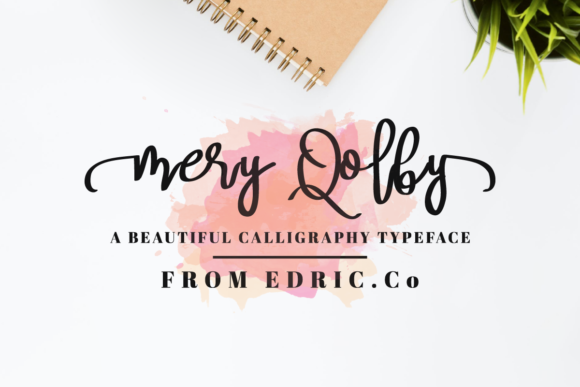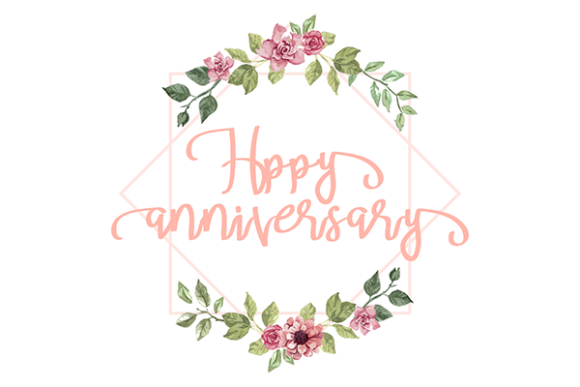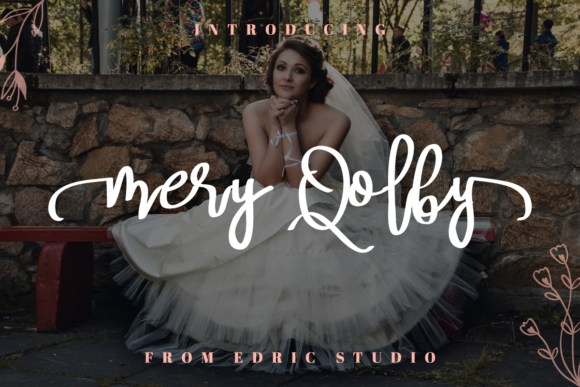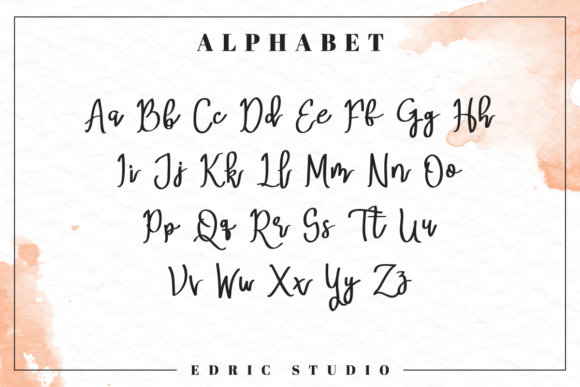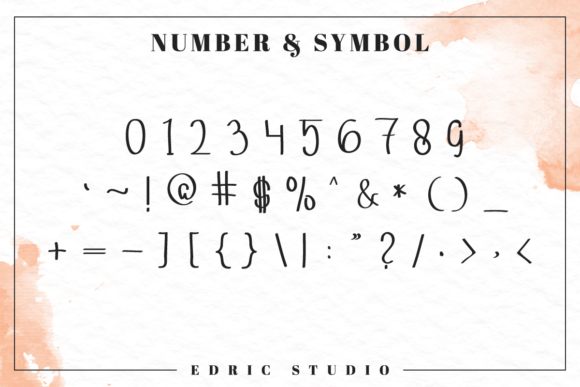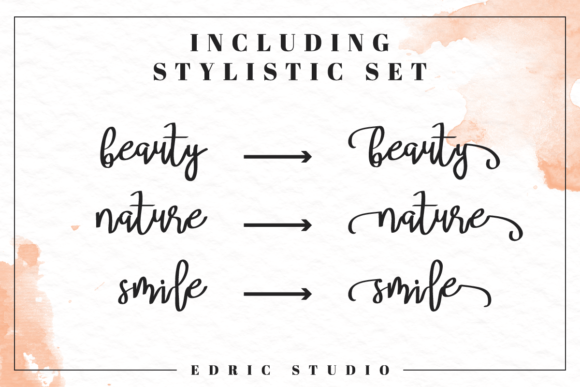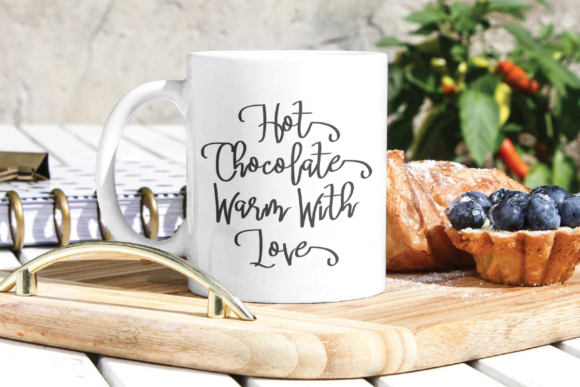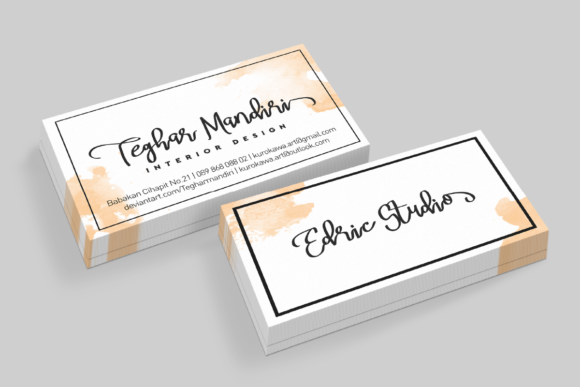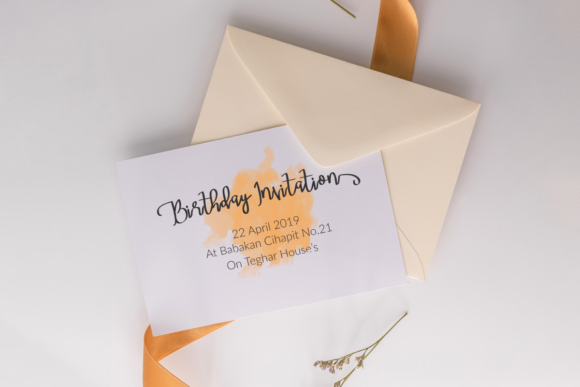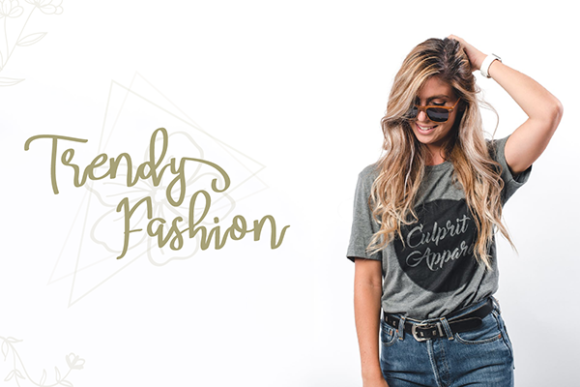
Mery Qolby Font
About Mery Qolby Font
Mery Qolby is a handmade script font with an organic feel. It will add a sophisticated spark to any design project!